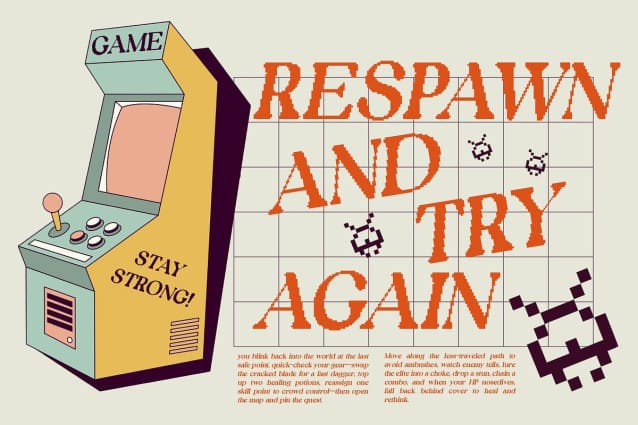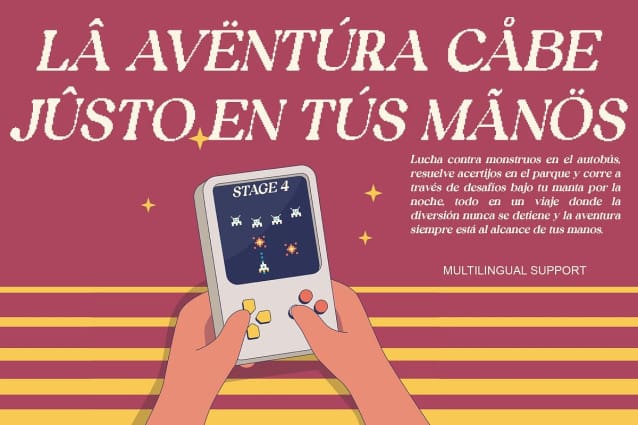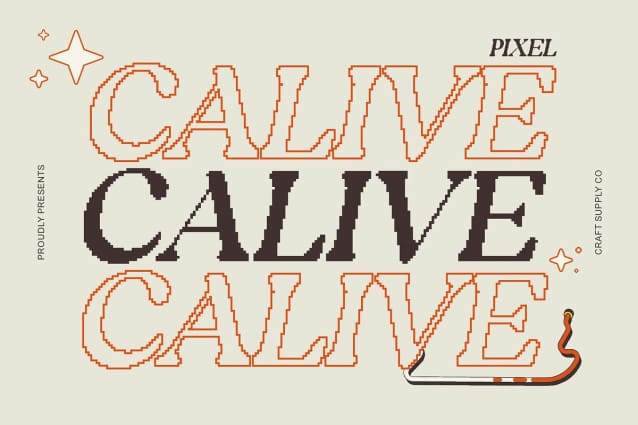
Calive Pixel Font
Calive Pixel Font – Classic Serif Font with Pixel Style: Where Classic Elegance Meets Retro Energy.Bold Serif with Rounded Terminals This is a classic serif font defined by bold letterforms and softened rounded terminals. This combination gives the typeface a look that feels strong and dependable, yet approachable and stylish. The balance between structure and friendliness makes it a versatile choice for both modern and nostalgic design projects.
Infused with 90s Retro Vibe Step back into the energy of the 90s with this fonts retro-inspired aesthetic. The font carries a warm sense of nostalgia, evoking vintage posters, arcade culture, and expressive editorial layouts. Its retro character adds personality and charm, instantly drawing attention to any design.
Pixel Look for Modern Creativity What sets this font apart is its unique pixel texture, which adds a fresh, artistic edge. The pixelated detailing injects a sense of digital energy, making the typeface feel both vintage and advanced. This duality creates a bold visual identity that feels perfect for designers who want to mix tradition with innovation.
Perfect for Posters, Logos, and Branding From striking posters to memorable logos, thrives in display settings. Its combination of bold serifs, retro energy, and pixel artistry makes it an ideal font for creative branding projects. Whether used for playful designs, nostalgic themes, or futuristic concepts with a retro twist, this font provides a unique, expressive voice.